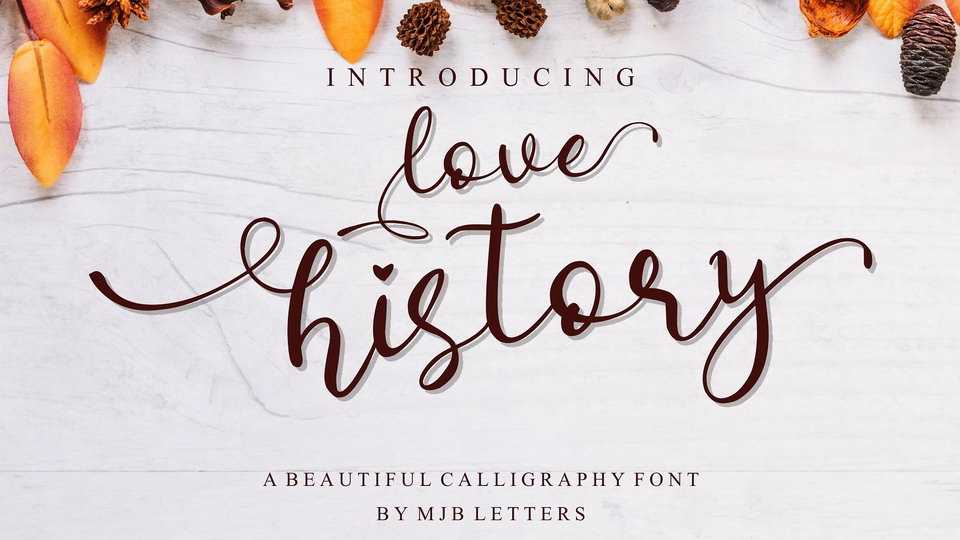
Download Love History font, a lovely modern script made very carefully to produce an original hand touch so that it can give a natural impression on the design.
Designer: MJB Letters